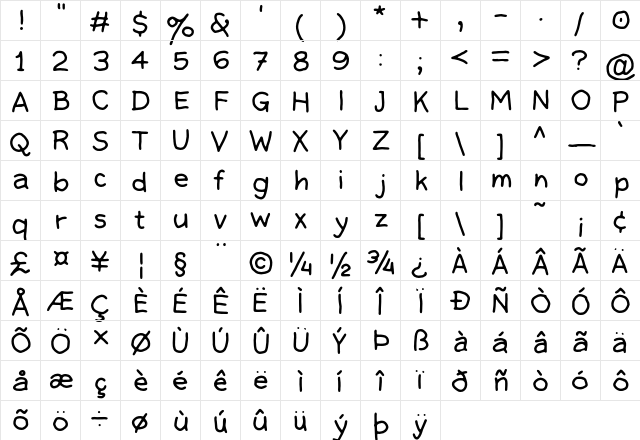
Guacamole Quickstep Regular
| Foundry | S. John Ross |
| Designer | S. John Ross |
Design Context for Guacamole Quickstep Typeface
Guacamole Quickstep is a composed and adaptable typeface that performs quietly and consistently across a wide range of design contexts.